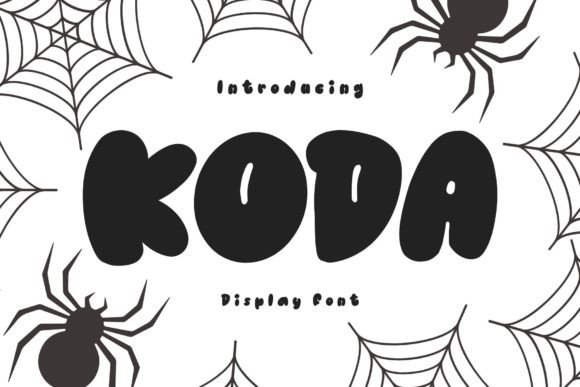
Get ready to be swept into a world of retro nostalgia with Koda Font. This captivating display font, crafted with exquisite care by Brown Cupple Fonts, embodies a spirit of playfulness and authenticity, making it the perfect companion for your creative endeavors.
Immerse yourself in the vibrant era of vintage aesthetics, where Koda Font shines as a beacon of retro elegance. Its charming details, inspired by the golden age of design, bring a sense of nostalgia and intrigue to any project you set your heart on.
With Koda Font as your artistic ally, you can effortlessly craft blog posts that ooze character, logos that exude a timeless allure, and branding materials that evoke a sense of warmth and familiarity. Let your imagination run wild as you harness the power of Koda Font to create ads that captivate, invitations that entice, and greeting cards that convey heartfelt messages.
But the versatility of Koda Font doesn't stop there. Unleash your creativity and use it to design planners that inspire productivity, photo albums that preserve precious memories, decorations that add a touch of whimsy, and much more. The possibilities are endless, bound only by the limits of your imagination.
So why settle for ordinary fonts when you can make a statement with Koda Font? Let your designs exude a sense of retro charm and authenticity that resonates with your audience. Whether you're a seasoned designer or just starting your creative journey, Koda Font is the key to unlocking a world of captivating designs that will leave a lasting impression.
Embrace the allure of the past and step into the future with Koda Font. Its timeless appeal and endless versatility make it a must-have in the toolkit of any creative individual. Download Koda Font today and embark on an extraordinary journey of artistic expression.